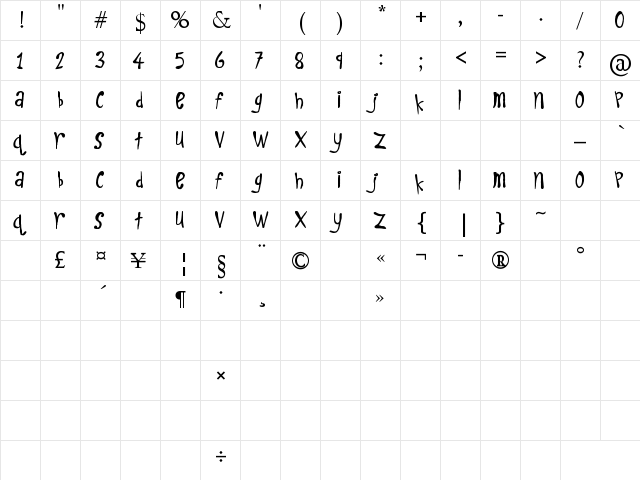
Kids Play Regular
Design Context for Kids Play Typeface
Kids Play has an approachable, lighthearted character — its loose, expressive forms are well-suited to children's content, casual branding, and fun-first design.
Font Pairing: Pairs well with a rounded or humanist sans for body copy, maintaining the friendly tone without relying on Kids Play to carry extended reading.
Pro Tip: Use Kids Play at larger display sizes where its expressive character can land. Pair with a clean, simple sans for body copy to maintain readability.